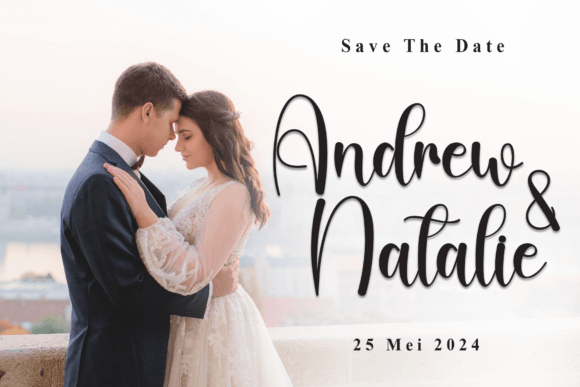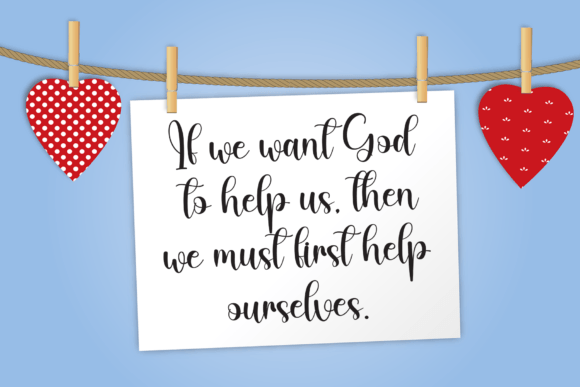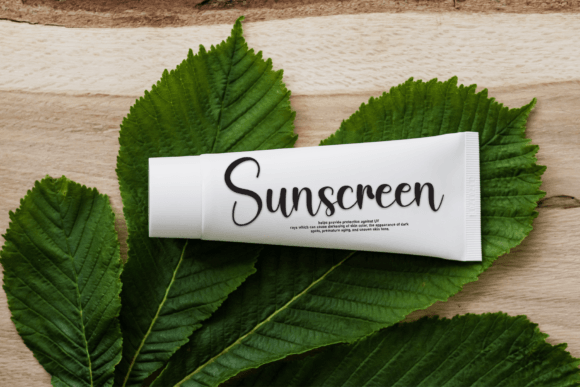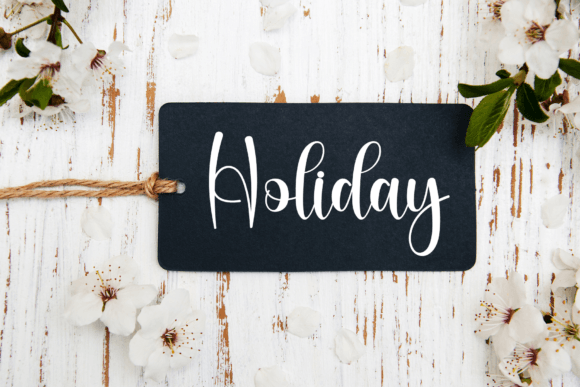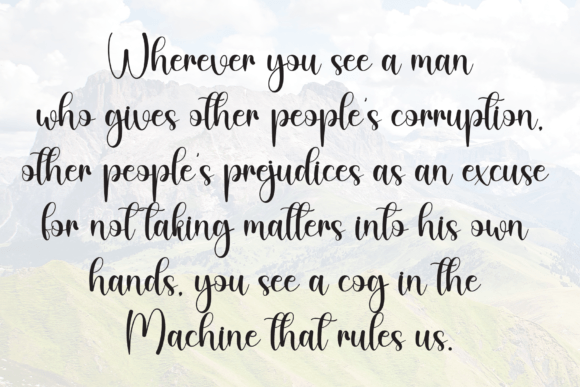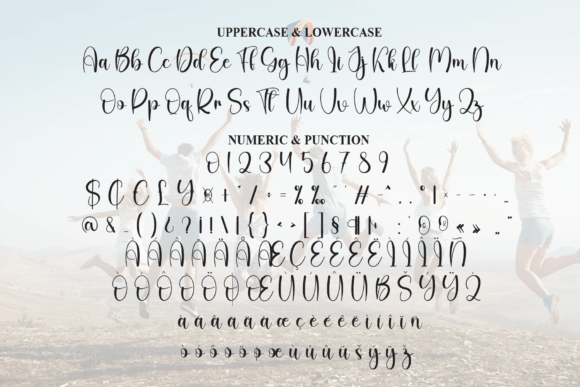
Introducing Friends Font: Elevate Your Designs with Elegance and Charm
Are you tired of using the same old fonts for your branding, invitations, and editorial designs? Look no further than Friends Font, a stylish handwritten font that blends elegance with a personal touch. With its fluid, graceful strokes and sophisticated character, Friends Font is perfect for designers and crafters looking to add a touch of refinement and charm to their projects.
The Perfect Blend of Elegance and Personality
Friends Font is a beautifully crafted font that exudes elegance and sophistication. Its fluid strokes and refined character make it perfect for a wide range of design applications, from chic branding and elegant invitations to fashionable editorial designs. Whether you’re looking to create a luxurious brand identity, a stunning wedding invitation, or a stylish magazine layout, Friends Font is the perfect choice.
Key Features of Friends Font
- Fluid and Graceful Strokes: Friends Font features fluid and graceful strokes that give it a smooth and refined appearance.
- Sophisticated Character: The font has a sophisticated character that makes it perfect for elegant and high-end designs.
- Handwritten with a Personal Touch: Friends Font is a handwritten font that adds a personal touch to your designs, making them stand out from the crowd.
- Versatile and Adaptable: The font is versatile and adaptable, making it perfect for a wide range of design applications.
Uses for Friends Font
Friends Font is a versatile font that can be used for a wide range of design applications, including:
- Branding: Use Friends Font to create a luxurious brand identity that exudes elegance and sophistication.
- Invitations: Create stunning invitations for weddings, parties, and other special occasions with Friends Font.
- Editorial Design: Use Friends Font to create stylish magazine layouts, blog posts, and other editorial designs.
- Packaging: Add a touch of elegance to your product packaging with Friends Font.
Why Choose Friends Font?
There are many reasons why you should choose Friends Font for your design projects. Here are a few:
- Unique and Eye-Catching: Friends Font is a unique and eye-catching font that will make your designs stand out from the crowd.
- Elegant and Sophisticated: The font exudes elegance and sophistication, making it perfect for high-end designs.
- Easy to Read: Friends Font is easy to read, making it perfect for body text and other long-form content.
- High-Quality: The font is of high quality, with smooth and refined strokes that will look great in any design.
Tips for Using Friends Font
Here are a few tips for using Friends Font in your design projects:
- Use it as a Headline Font: Friends Font is perfect for use as a headline font, where its elegance and sophistication can really shine.
- Pair it with a Sans-Serif Font: Pair Friends Font with a sans-serif font for body text to create a stylish and elegant contrast.
- Experiment with Colors: Friends Font looks great in a wide range of colors, so don’t be afraid to experiment and find the perfect color for your design.
Friends Font is a stylish handwritten font that blends elegance with a personal touch. With its fluid, graceful strokes and sophisticated character, it’s perfect for designers and crafters looking to add a touch of refinement and charm to their projects. Whether you’re creating a luxurious brand identity, a stunning wedding invitation, or a stylish magazine layout, Friends Font is the perfect choice. So why wait? Download Friends Font today and elevate your designs with elegance and charm!